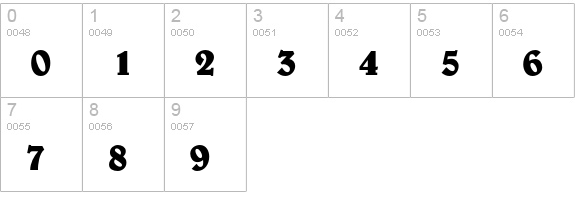
Belwe Bold is a strong, high-contrast variant in the Belwe typeface family \xE2\x80\x94 well suited to headlines, attention-grabbing titles, and strong calls-to-action.
Belwe Bold is a classic and elegant font that exudes a sense of sophistication and timelessness. With its bold and commanding appearance, this typeface is perfect for adding a touch of grandeur to any design project. The strong, clean lines and distinctive serifs of Belwe Bold make it a versatile choice for a wide range of applications, from branding to editorial design. What's even better is that Belwe Bold is available for free download at FontsMarket.com. This means that you can enhance your creative projects with this beautiful font without having to spend a dime. Whether you're working on a logo, poster, website, or any other design, Belwe Bold will surely make a statement and elevate your work to the next level. Download Belwe Bold today and let its timeless appeal elevate your designs.